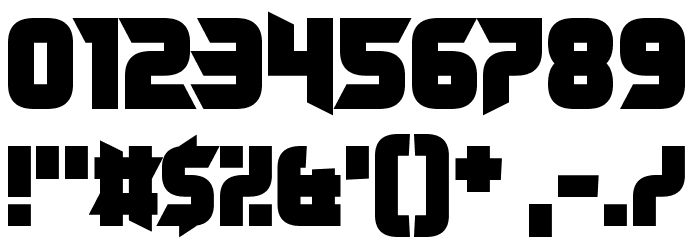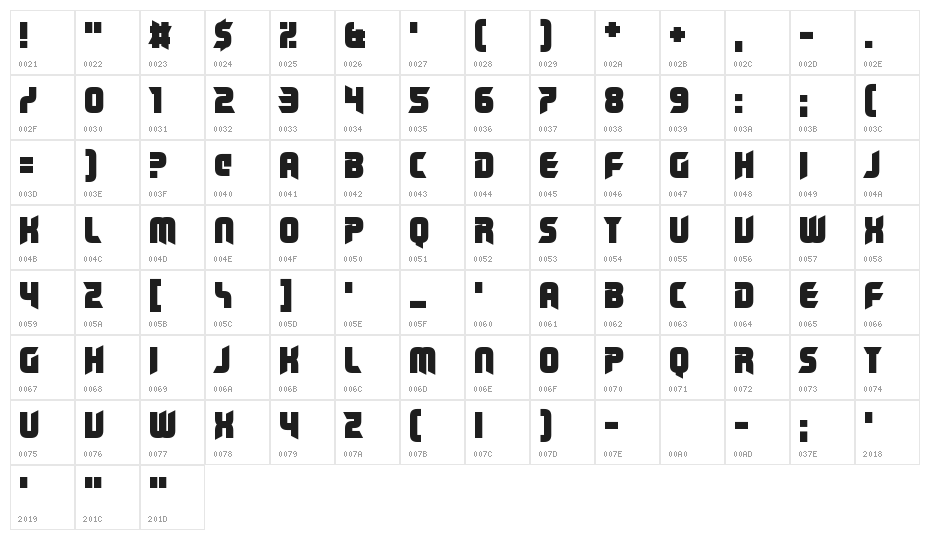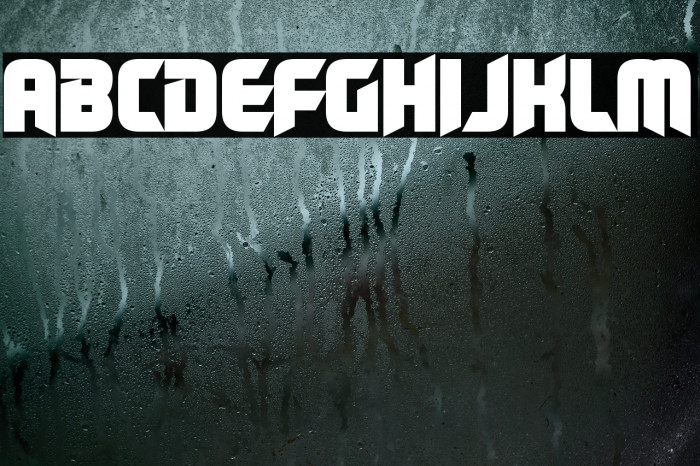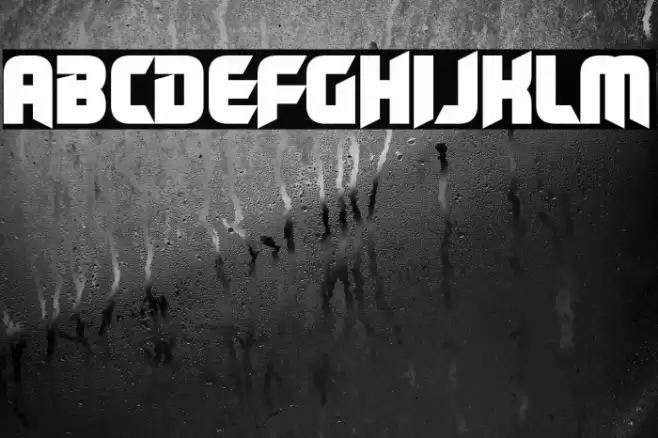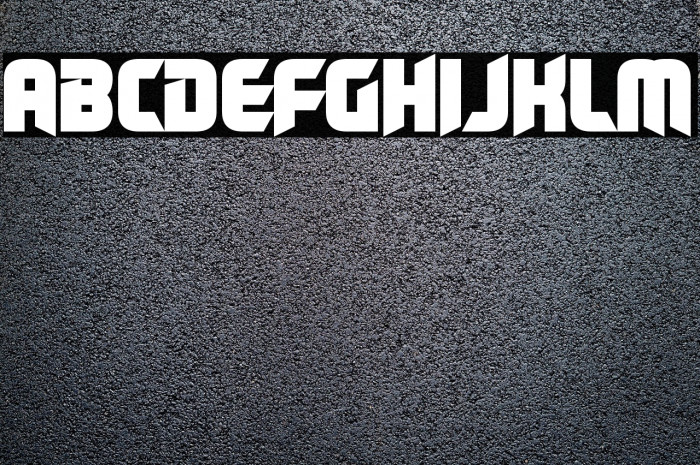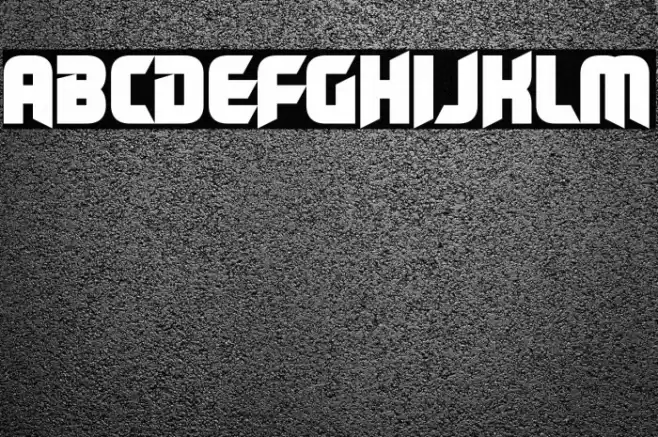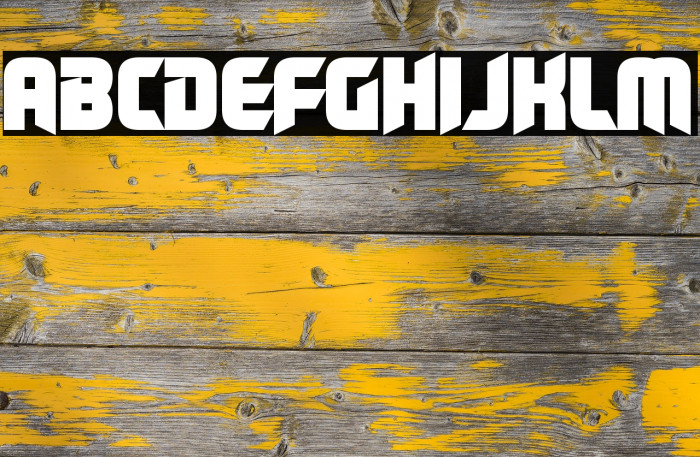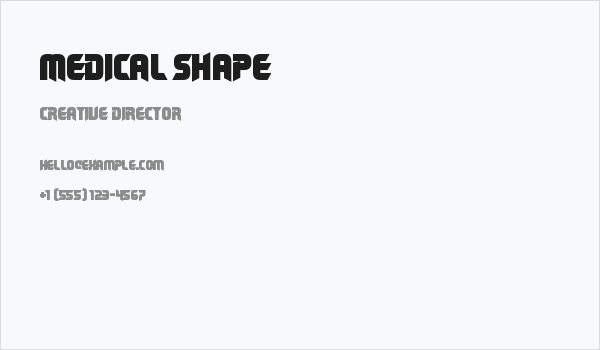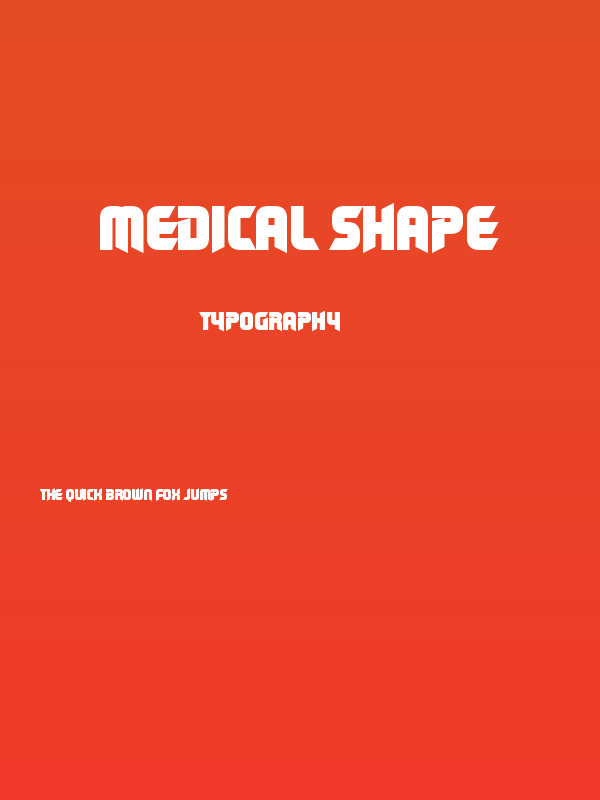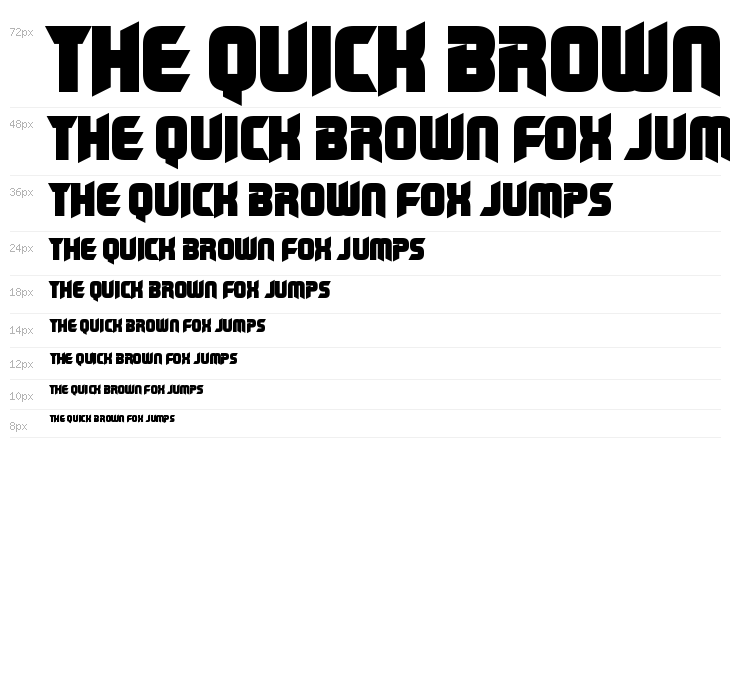
Medical Shape Font
Medical Shape Description
This font features a bold, geometric design with sharp angles and a futuristic aesthetic. The characters are constructed with thick strokes and distinct cuts, creating a dynamic and modern look. The uppercase letters are particularly striking, with unique shapes that emphasize their angularity. The numbers and special characters maintain the same bold style, ensuring consistency across all glyphs. This font's design is eye-catching and suitable for projects that require a strong visual impact.
| Proposed Projects | Ideal for branding, posters, video game graphics, and sci-fi themed designs. |